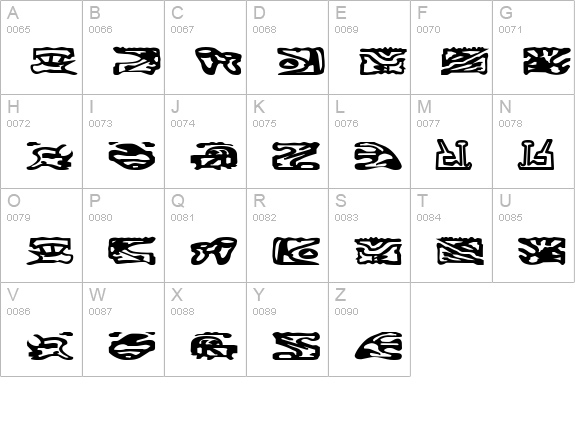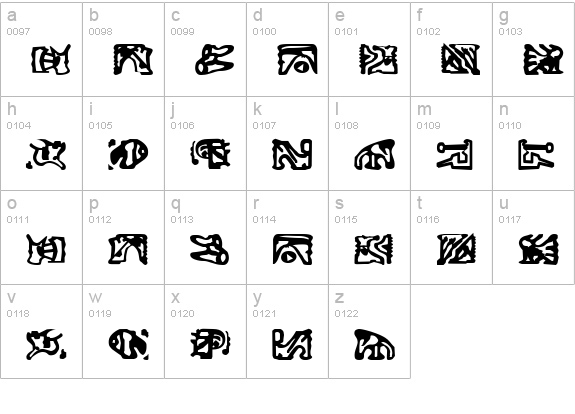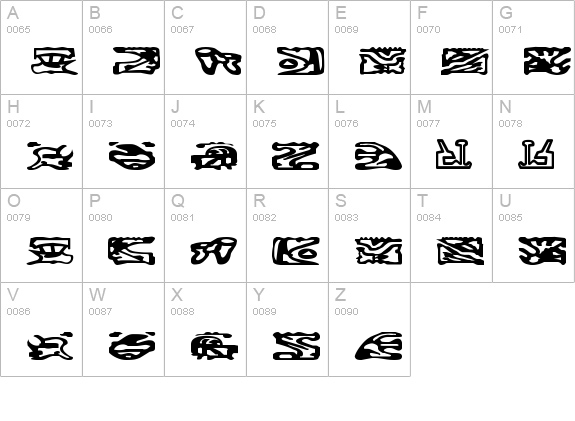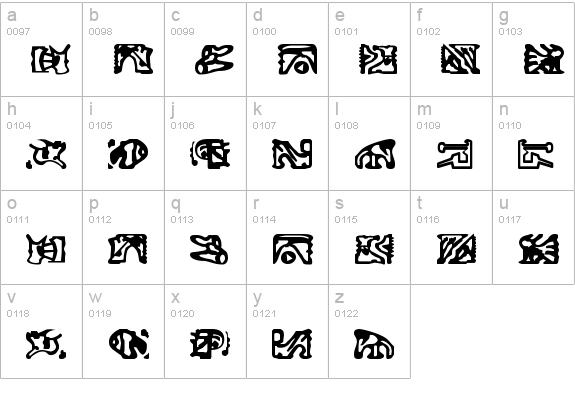
Bajoran Ideogram - ST canon based Font Details
The Bajoran Ideogram font, a stunning representation of the symbolic language of the noble Bajoran people, is a must-have for any Star Trek fan or language enthusiast. With its intricate design and authentic feel, this font captures the essence of Bajoran culture and spirituality. Each ideogram is meticulously crafted to convey deep meanings and emotions, making it a truly unique addition to your font collection. What sets the Bajoran Ideogram font apart is that it is freely available for download at FontsMarket.com. Yes, you read that right - you can now access this exquisite font at absolutely no cost. Immerse yourself in the rich history and tradition of Bajor with this one-of-a-kind font that brings the mystical world of Deep Space Nine right to your fingertips. Download the Bajoran Ideogram font today and let your creativity soar to new heights.